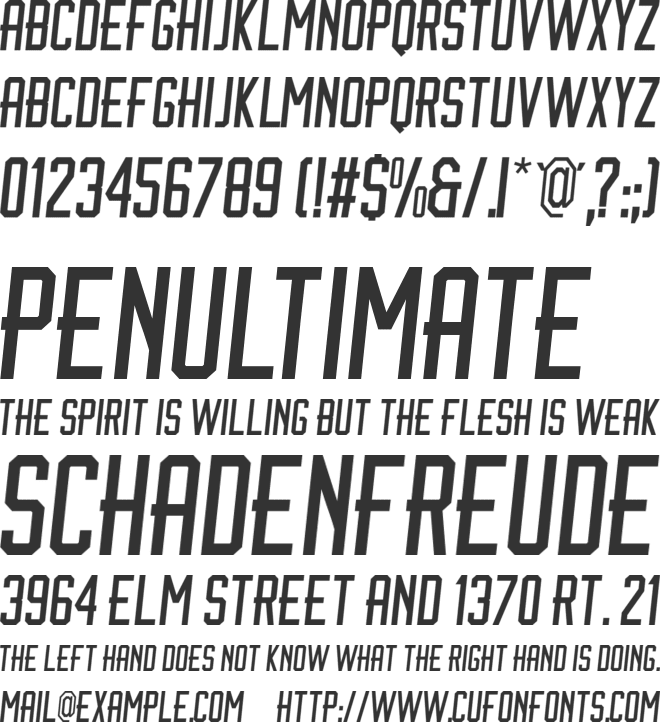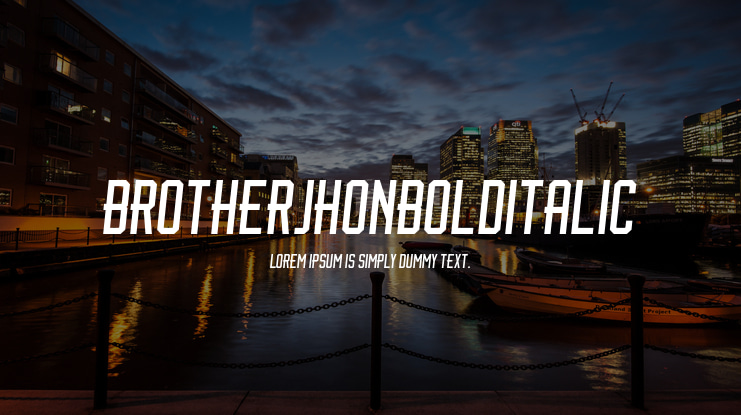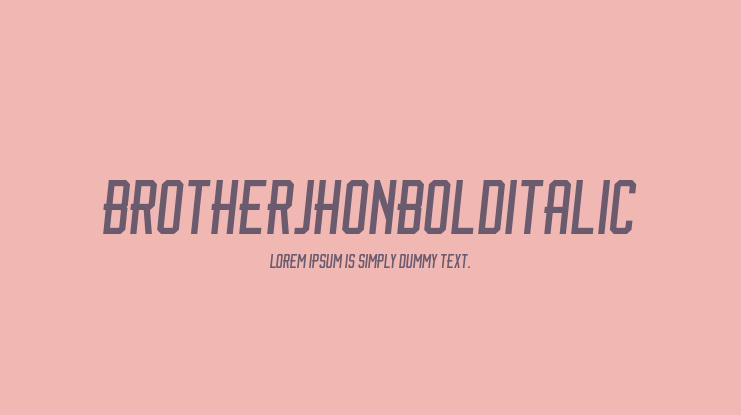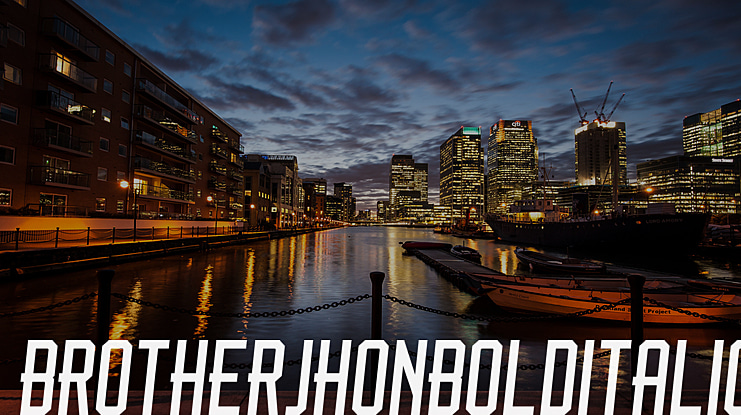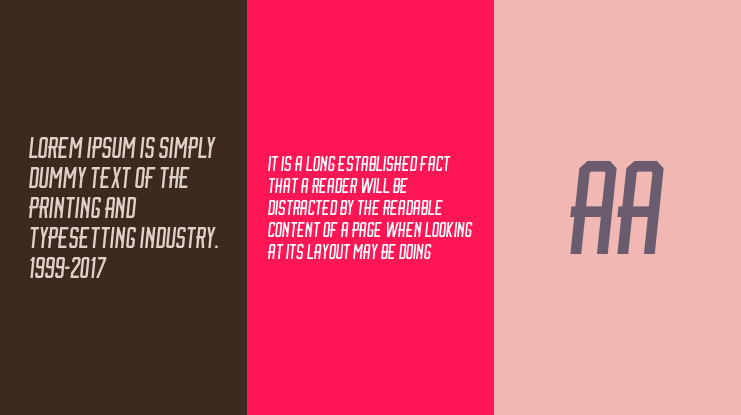
BrotherJhonBoldItalic Font
We name it BrotherJohn, a display font. It's part of larger font family.
For free version you can use an italic version from BrotherJhon Bold, along with numerical, punctuation and multilingual symbol.